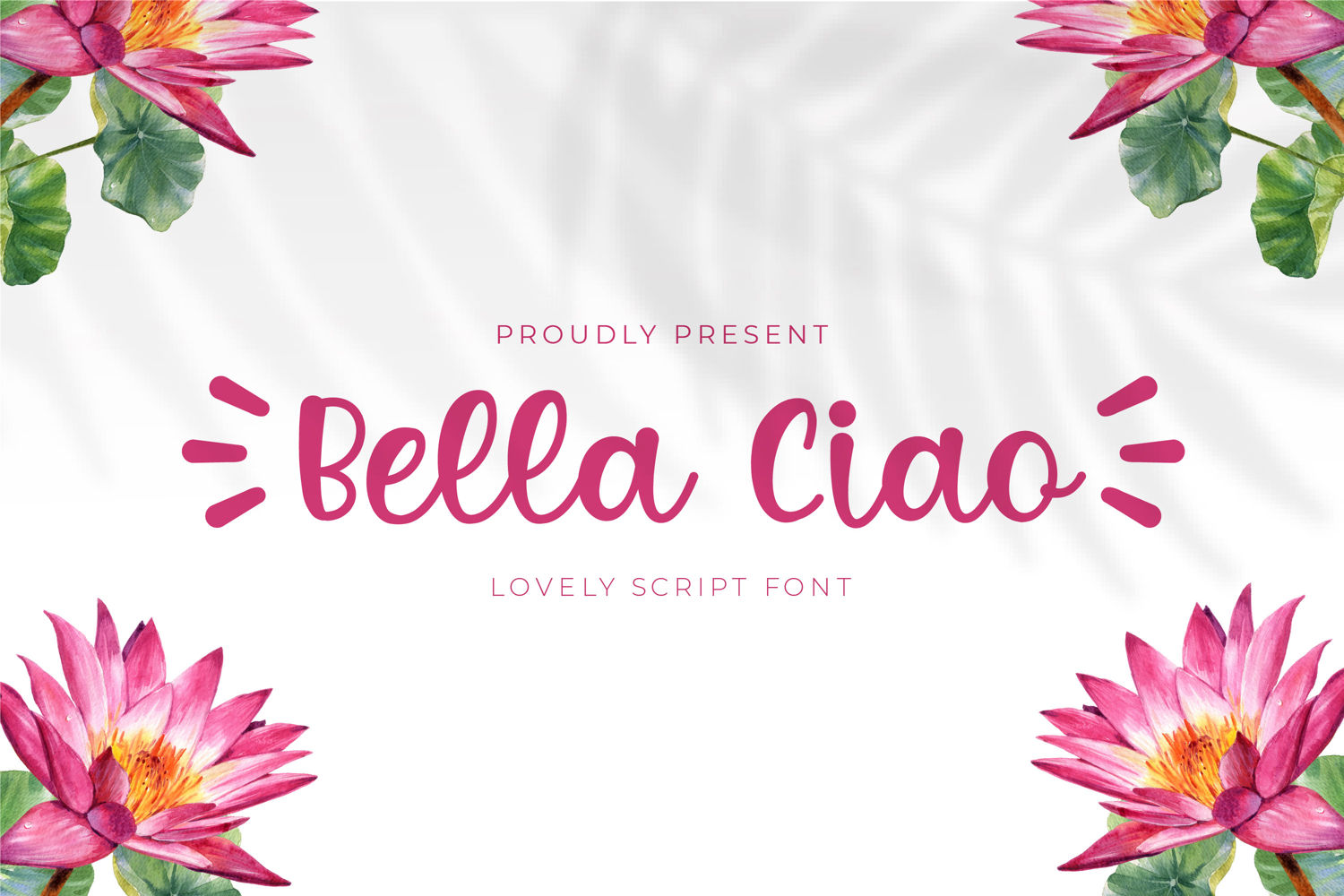
Bella Ciao - Lovely Script Font
Bella Ciao is a Lovely Script font that will make your designs look unique and fun. It’s perfect for labels, quotes, posters, DIY projects, branding, packaging, greeting cards, websites, photography overlays, signs, window art, scrapbooking, tags and so much more!